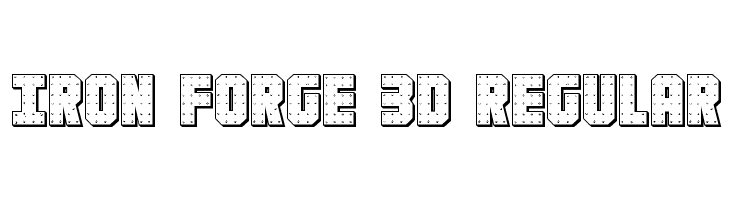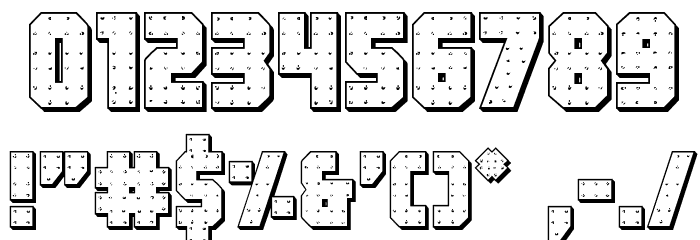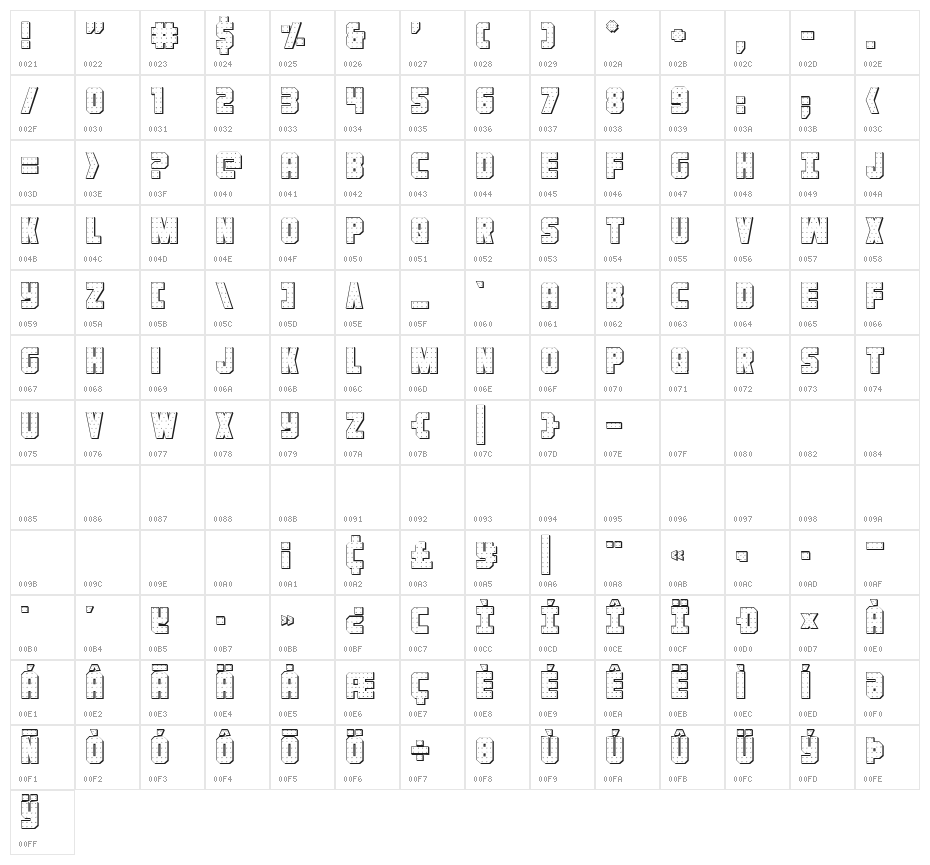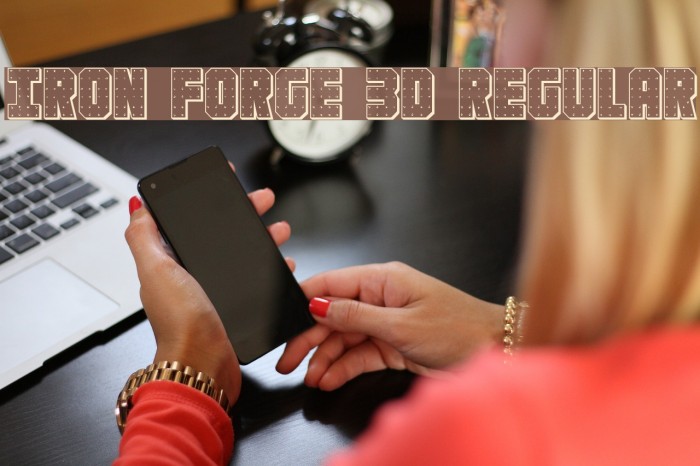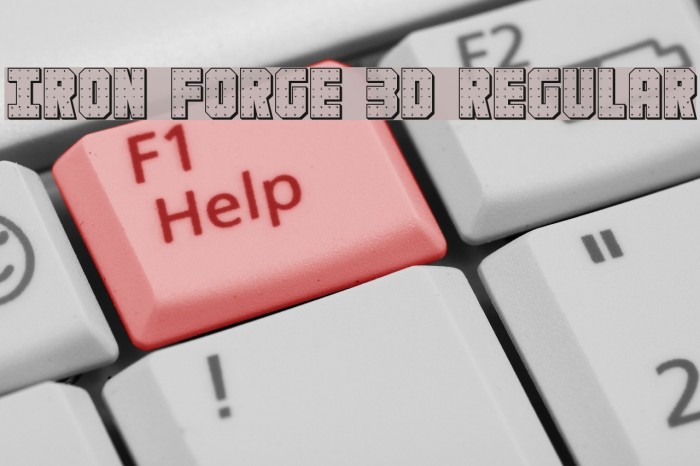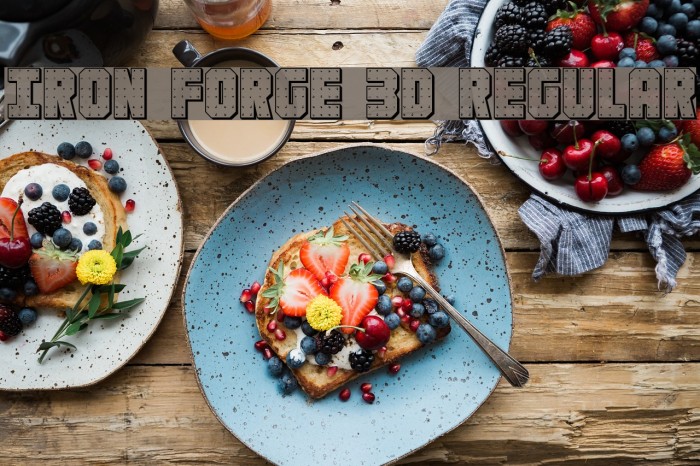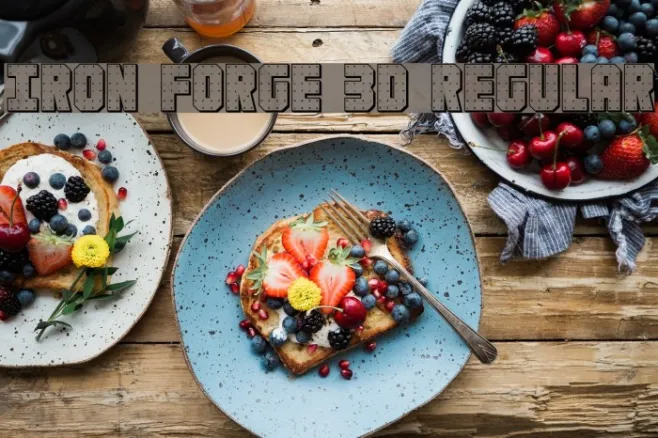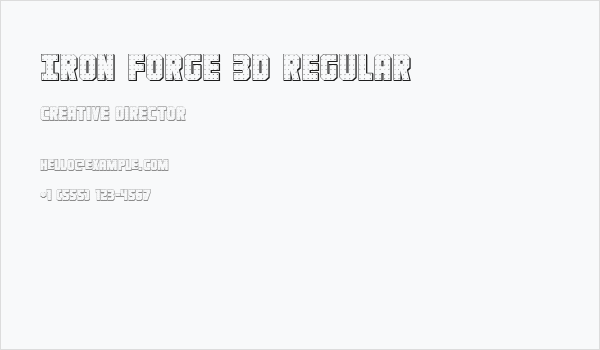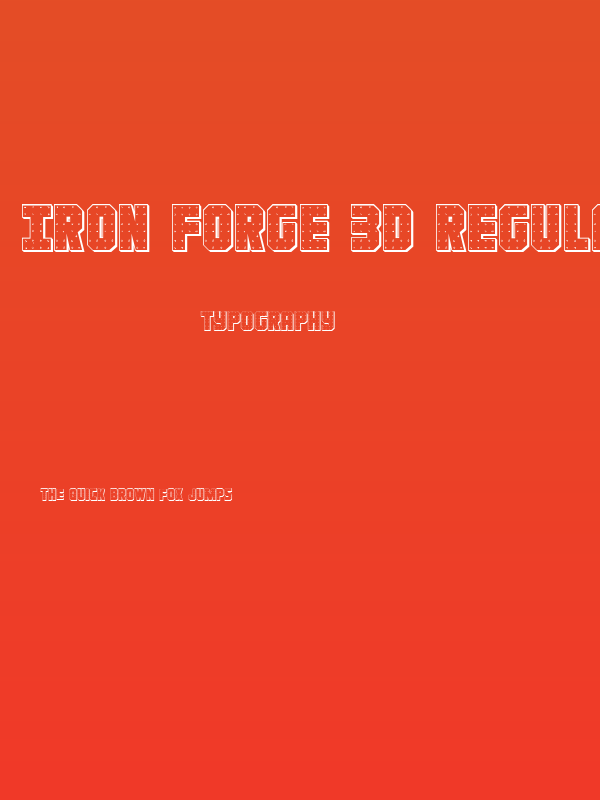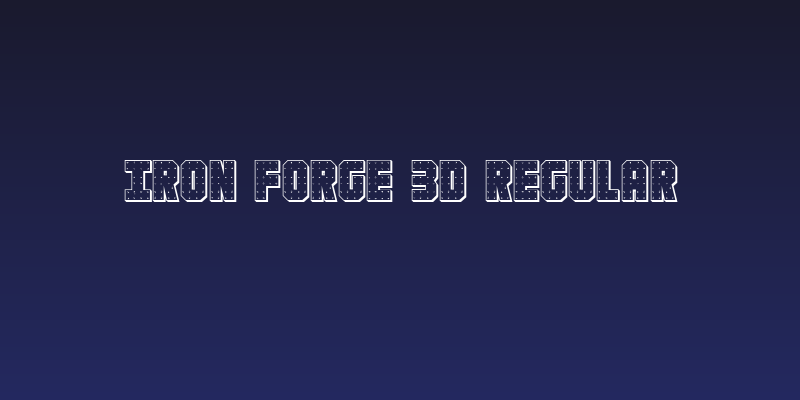
Iron Forge 3D Regular Font
Iron Forge 3D Regular Description
This font features a bold, three-dimensional style with a rugged, industrial appearance. The characters are blocky and robust, with a distinct shadow effect that gives them a sense of depth and solidity. Each letter is adorned with a pattern of small dots, reminiscent of rivets or metal textures, enhancing the industrial theme. The uppercase and lowercase letters maintain a consistent style, with the numerals and special characters following suit. The overall design is eye-catching and impactful, making it suitable for projects that require a strong, mechanical aesthetic.
| Overall Style | Industrial, Decorative |
| Proposed Projects | Ideal for branding, posters, video game graphics, or any project needing a rugged, industrial look. |